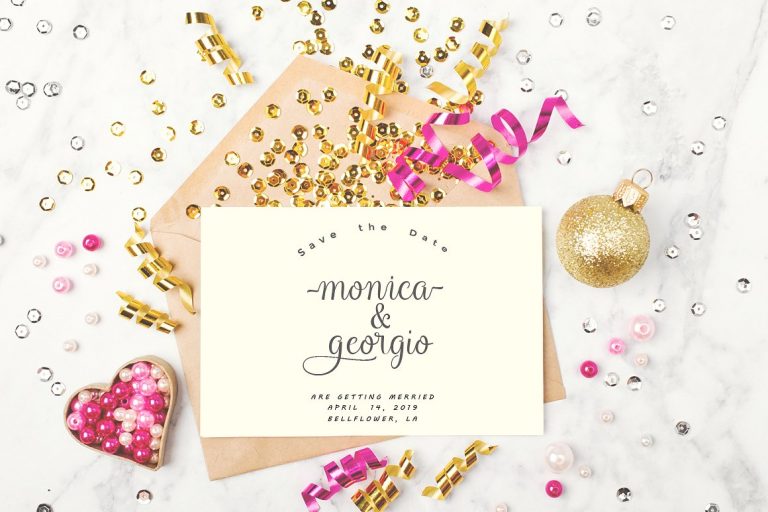
Harland Script Font
The free font package introduced today is a modern calligraphy font. Introducing Harland Font. Harland a new fresh & modern script with a handmade calligraphy style, decorative characters and a dancing baseline! So beautiful on invitation like greeting cards, branding materials, business cards, quotes, posters, and more!!